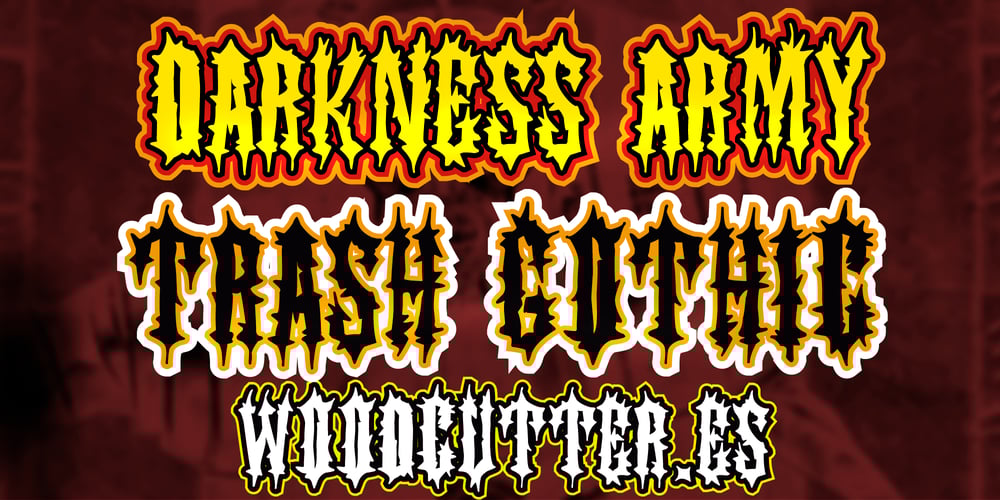
Darkness Army Font Family was designed by Jordi Manero and published by Woodcutter. Darkness Army contains 1 styles and family package options. “Darkness Army” is a dark and gothic typeface that captures the essence of the sinister with its shattered letters, adorned with thorns and protruding spikes. This font evokes images of shadowy worlds and formidable forces, making it ideal for projects that aim to convey an atmosphere of mystery and danger. With its striking and detailed design, “Darkness Army” is perfect for horror movie titles, book covers, and posters requiring a powerful and evocative visual presence. Its unique and aggressive aesthetic ensures that any message using this typeface will not go unnoticed.–Uppercase